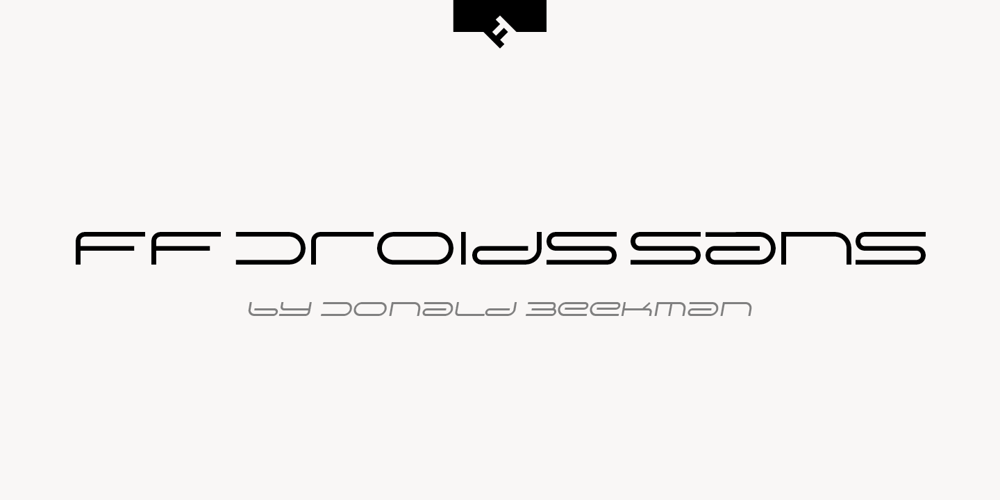
FF Droids Sans Font Family was designed by Donald Beekman and published by FontFont. FF Droids Sans contains 6 styles and family package options. Dutch type designer Donald Beekman created this display FontFont in 1999. The family has 6 weights, ranging from Light to Bold (including italics) and is ideally suited for music and nightlife, poster and billboards as well as software and gaming. FF Droids Sans provides advanced typographical support with features such as ligatures and case-sensitive forms. It comes with proportional lining figures. This FontFont is a member of the FF Droids super family, which also includes FF Droids.